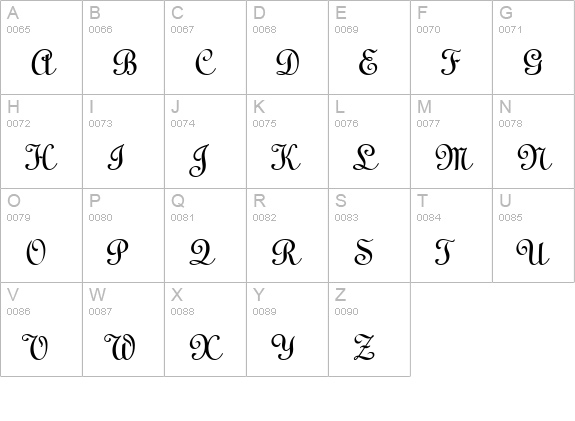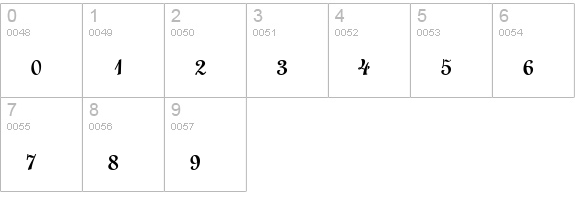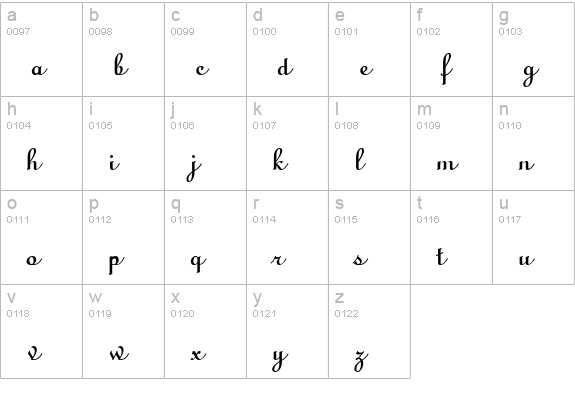
Uptype Bold Font Details
Uptype Bold is a strong, high-contrast variant in the Uptype typeface family \xE2\x80\x94 well suited to headlines, attention-grabbing titles, and strong calls-to-action.
Introducing Uptype Bold font, a stunning and bold typeface that is sure to make a statement. With its strong and confident letterforms, this font exudes a sense of power and authority. Designed with precision and attention to detail, Uptype Bold is perfect for headlines, titles, and any design project that requires impact. Its bold strokes and clean lines make it stand out on both digital and print media. Not only does Uptype Bold offer a striking aesthetic, but it also provides excellent legibility, ensuring that your message is conveyed with clarity and impact. Whether it's for a logo, branding, or advertising campaign, this font will undoubtedly elevate your design to new heights. And the best part? Uptype Bold is available for free! Yes, you read that right. You can easily download this remarkable font at FontsMarket.com, a trusted source for high-quality fonts. So why wait? Take your design game to the next level with Uptype Bold, the font that combines strength, style, and accessibility.